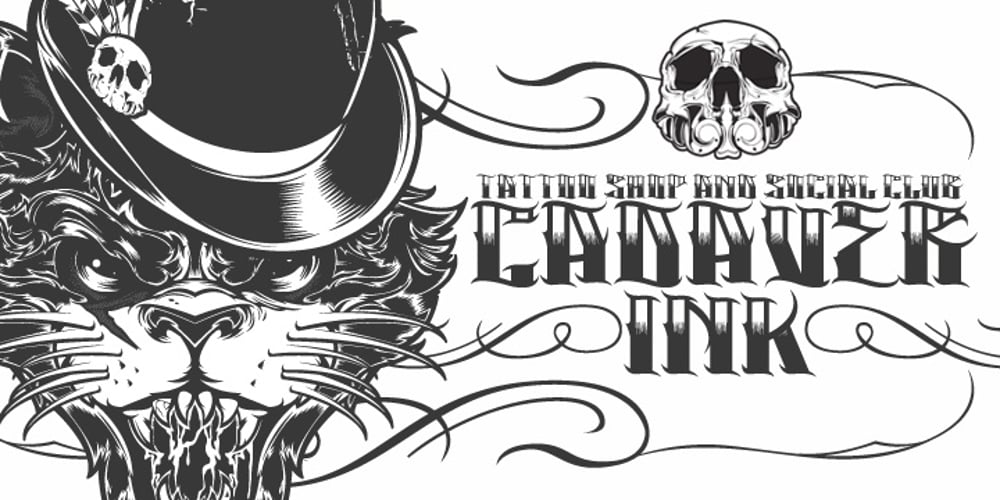
H74 Cadaver Ink Font Family was designed by Joshua M. Smith and published by Hydro74. H74 Cadaver Ink contains 2 styles and family package options. Cadaver Ink is a unique structured tattoo-inspired typeface with hard edges, etching and a flowing feel.